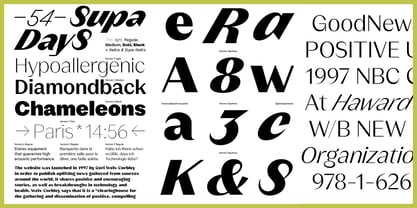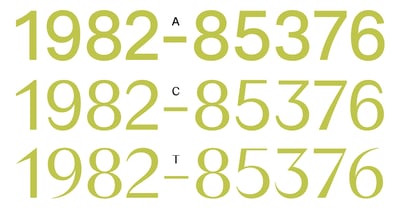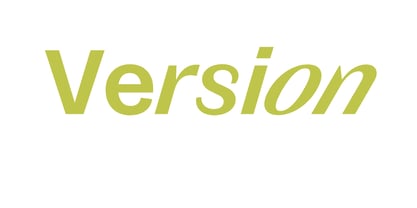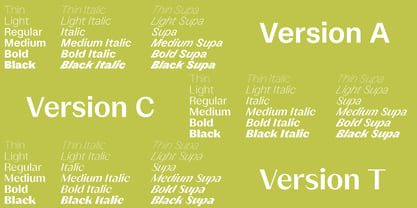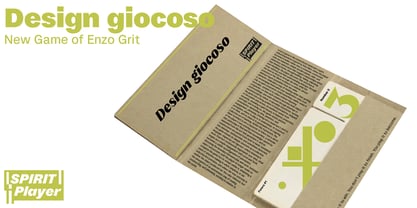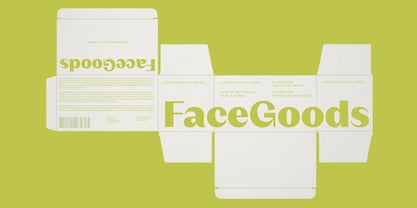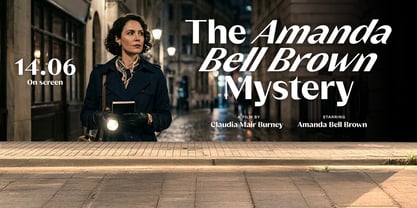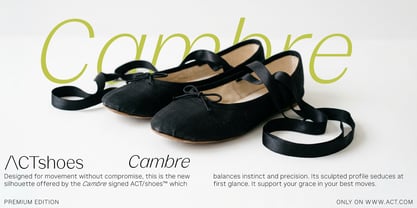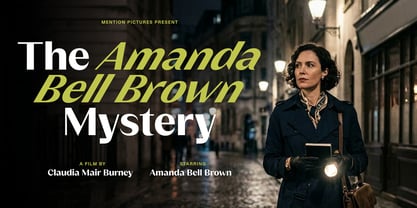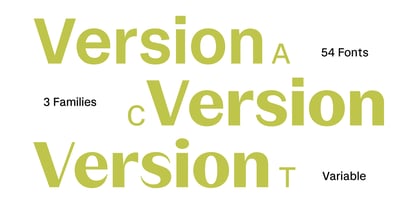
Version
Version is a multifaceted 🪩 typeface designed for a wide range of creative environments. It features three distinct subfamilies: Version A, a neutral and solid sans-serif; Version C, a slightly contrasted sans-serif; and Version T, a high-contrast sans-serif typeface. Discover unique letter shapes in the Supa italic, which is actually a 30° italic, particularly in the Version T 'S' and 's' shapes. This versatile typeface is perfect for branding, editorial design, and web applications, offering a blend of style and functionality that enhances any project.